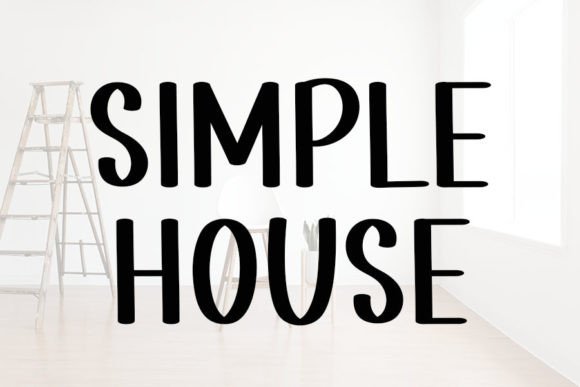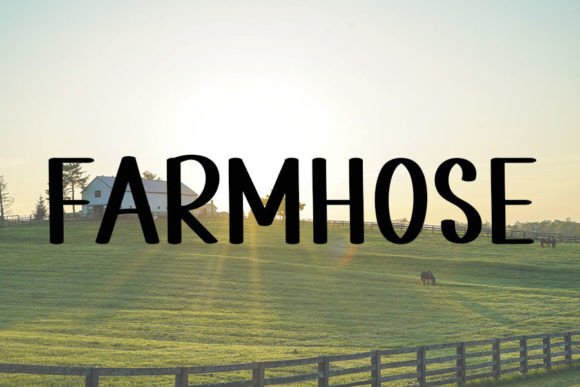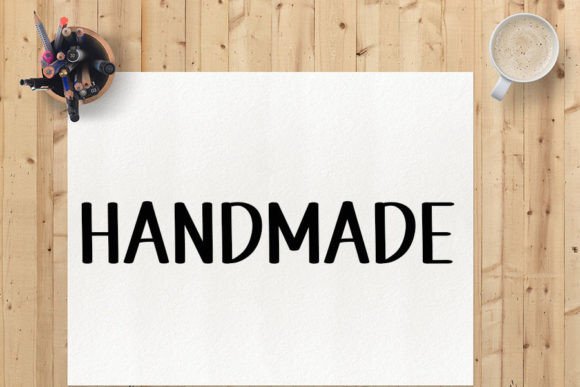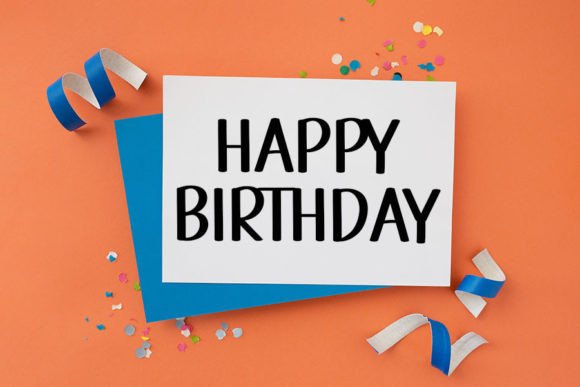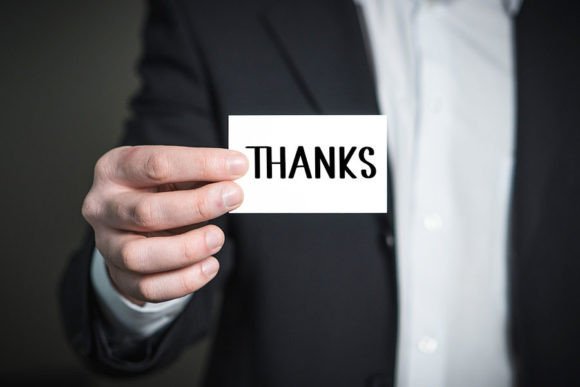
The Secret to Adding a Touch of Elegance to Your Designs
Have you ever been working on a design project, pouring your heart and soul into it, only to feel like something’s missing? That’s when the spark of creativity hits you – you need a font that’s going to elevate your design from ordinary to extraordinary. This is where Alived Font comes in – a stunning handwritten font that’s sure to add a touch of luxury to your next project.
| 👤 Author | Harlek studio |
With its beautiful, flowing characters that dance along the baseline, the Alived Font is the perfect addition to any design. Whether you’re working on a wedding invitation, a brand logo, or a social media post, this font is sure to bring a level of sophistication and elegance that’s hard to find elsewhere. As a designer, you know how valuable it is to have the right tools at your disposal – and the Alived Font is definitely one of them.
- Unique Characteristics: Alived Font features a unique blend of modern and vintage elements, with intricate details and subtle textures that evoke a sense of elegance and sophistication.
- Style Variations: Alived Font offers multiple style variations, including bold, italic, and regular, allowing designers to create a range of visual effects and emphasis.
Alived Font Review
Alived Font is a modern sans-serif typeface that has gained popularity in recent years. Here’s my honest review of this font.
- Legibility: Alived Font is highly legible even at small font sizes, making it suitable for digital displays and mobile devices.
- Modern feel: The font’s sleek and modern design gives it a trendy look that appeals to many designers.
- Variety of weights: Alived Font comes in multiple weights, from light to bold, allowing for greater flexibility in typography.
- Limited expressiveness: Alived Font can feel a bit flat and lacks the expressiveness of more traditional serif fonts.
- Not suitable for complex text: The font’s simplicity can make it difficult to read complex text or paragraphs with multiple styles.
Alived Font is a solid choice for modern and minimalist designs. While it has some limitations, it excels in terms of legibility and versatility. However, it may not be the best fit for complex or traditional designs. Ultimately, the choice to use Alived Font depends on the specific project requirements and personal preference.
For optimal results, use the Alived Font for headings and titles to add a touch of elegance to your designs.
Use the Alived Font to create eye-catching titles, headings, and labels that add a touch of sophistication to your designs.
Use the Alived Font to create visually appealing presentations and documents that stand out from the crowd.
Tips for Getting the Most Out of Alived Font
Use the Alived Font in combination with other elegant fonts to create a cohesive design.
Experiment with different font styles and sizes to add visual interest to your designs.
Use the Alived Font for titles, headings, and labels to add a touch of sophistication to your designs.
Magazine and newspaper headlines